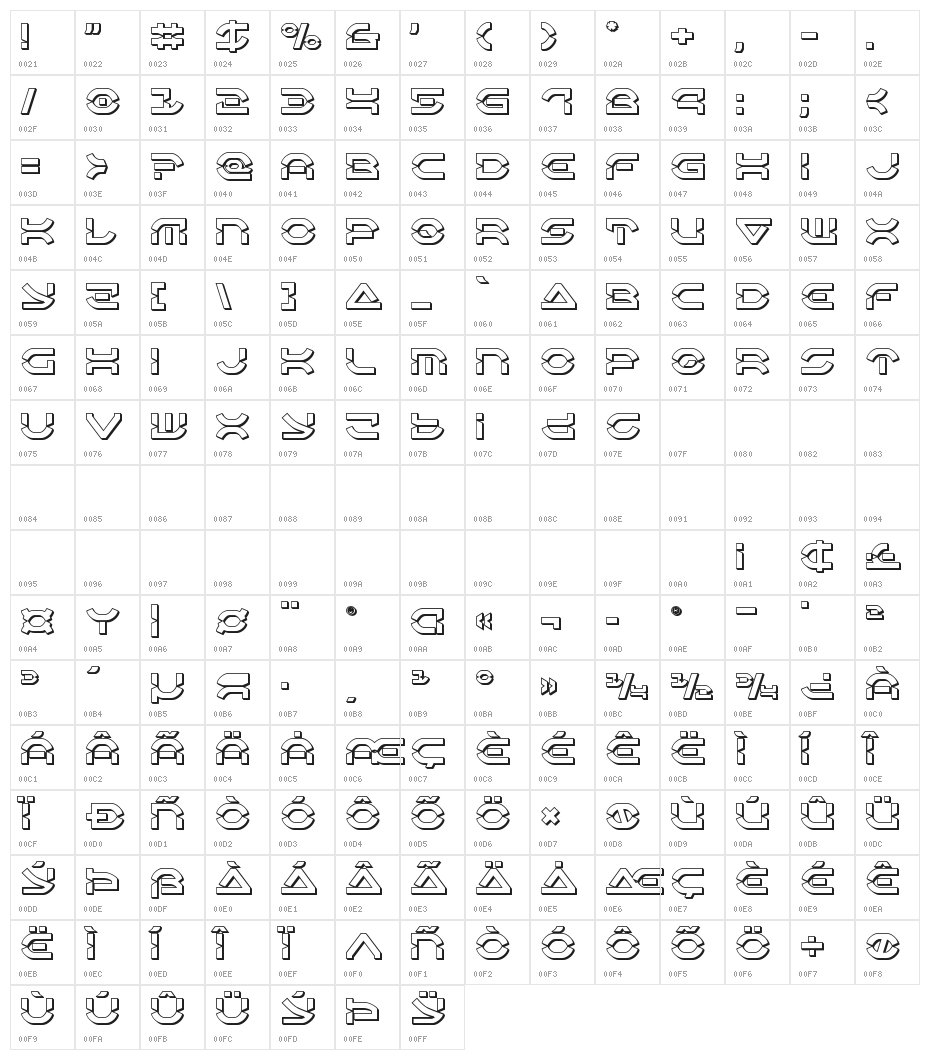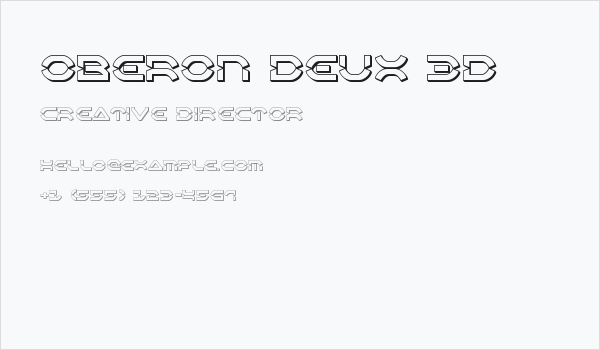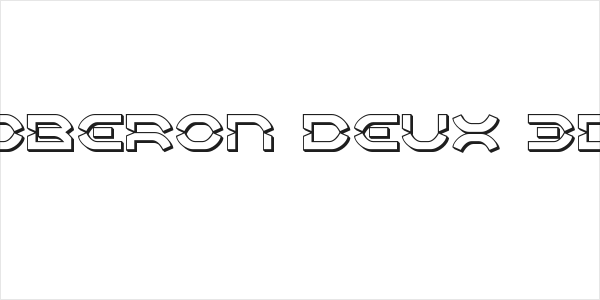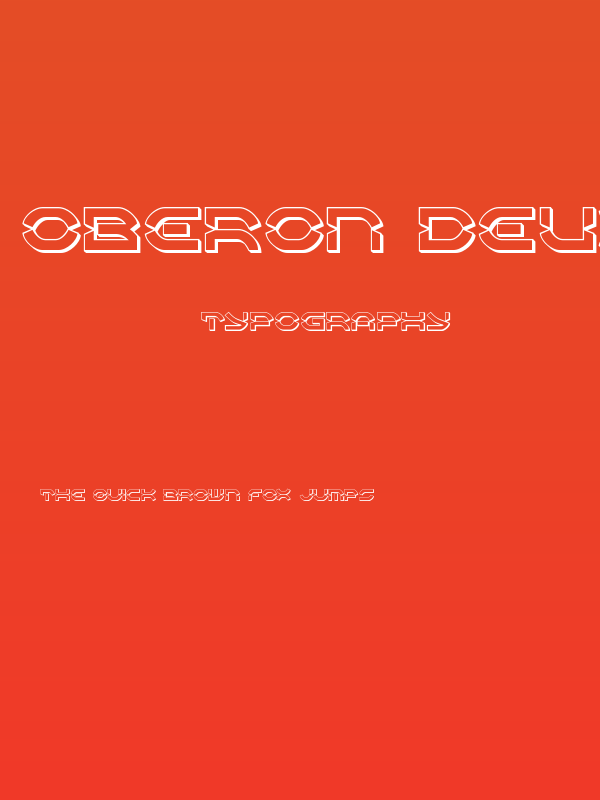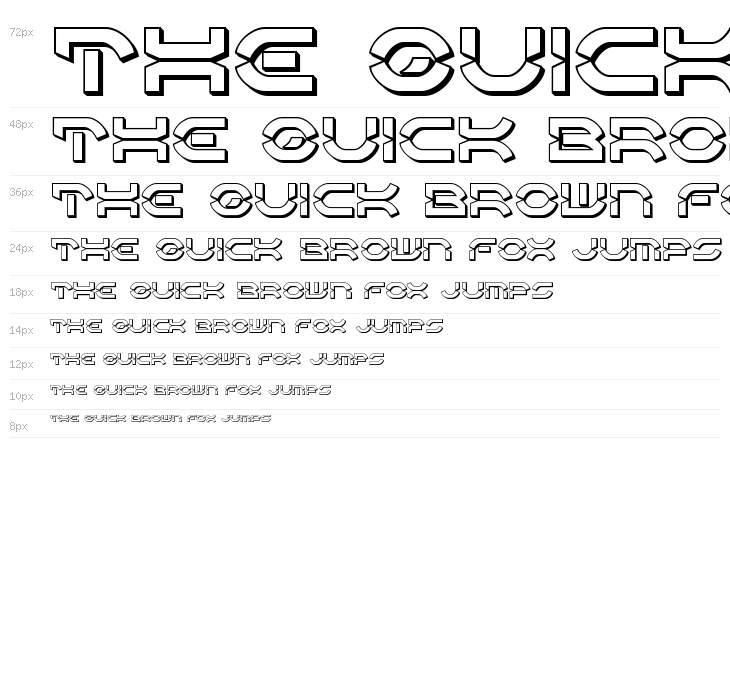
Oberon Deux 3D Font
Oberon Deux 3D Description
This font features a bold, futuristic design with a three-dimensional effect. Each character is outlined with a thick border, giving it a distinct, blocky appearance. The geometric shapes and angular lines contribute to its modern and technological feel. The uppercase and lowercase letters maintain a consistent style, with sharp edges and a sense of depth. Numbers and special characters are crafted with the same attention to detail, ensuring uniformity across the typeface. The font's unique style makes it stand out, ideal for projects that require a strong visual impact.
| Proposed Projects | Ideal for sci-fi themed posters, video game titles, tech branding, and futuristic designs. |